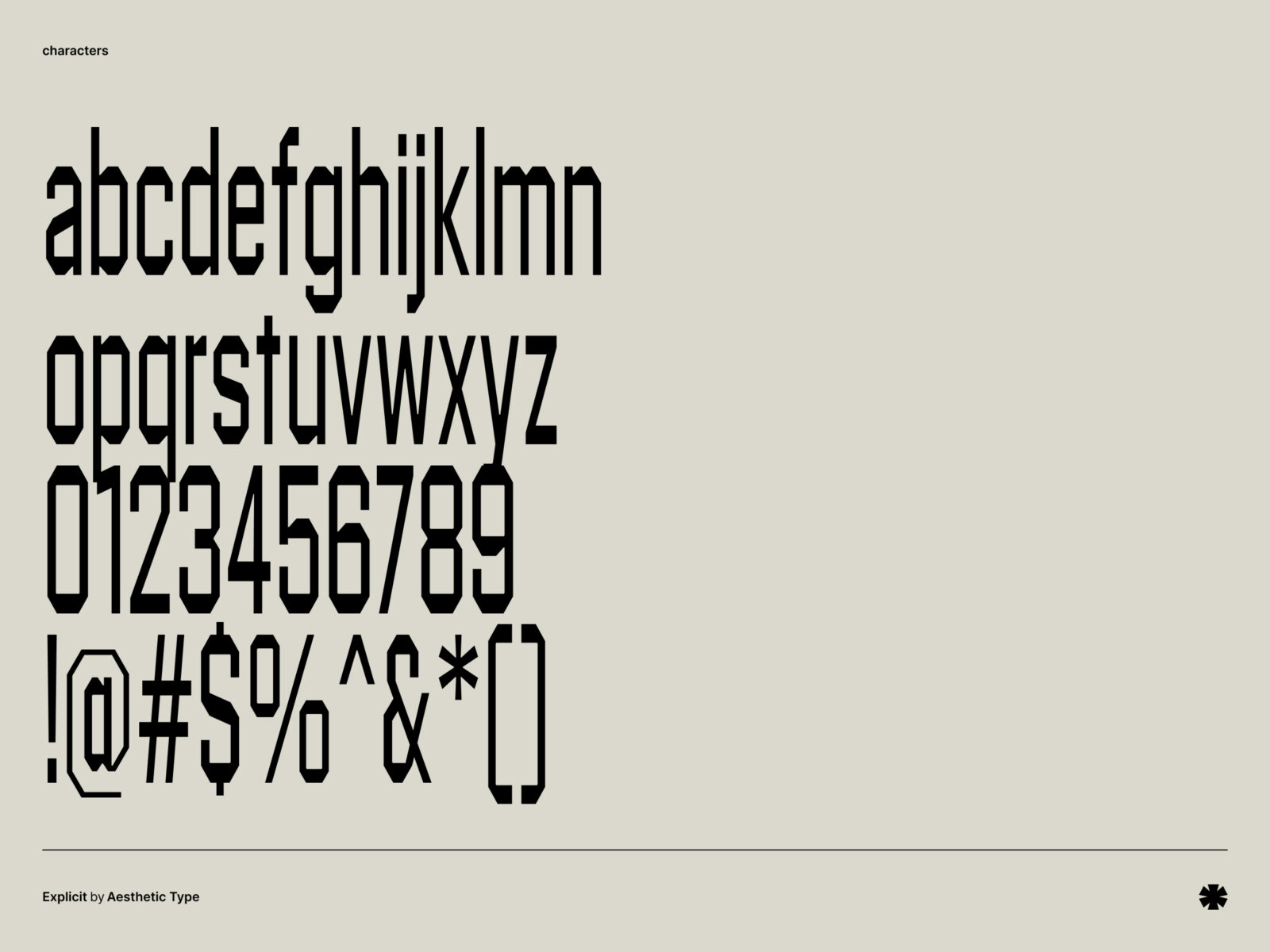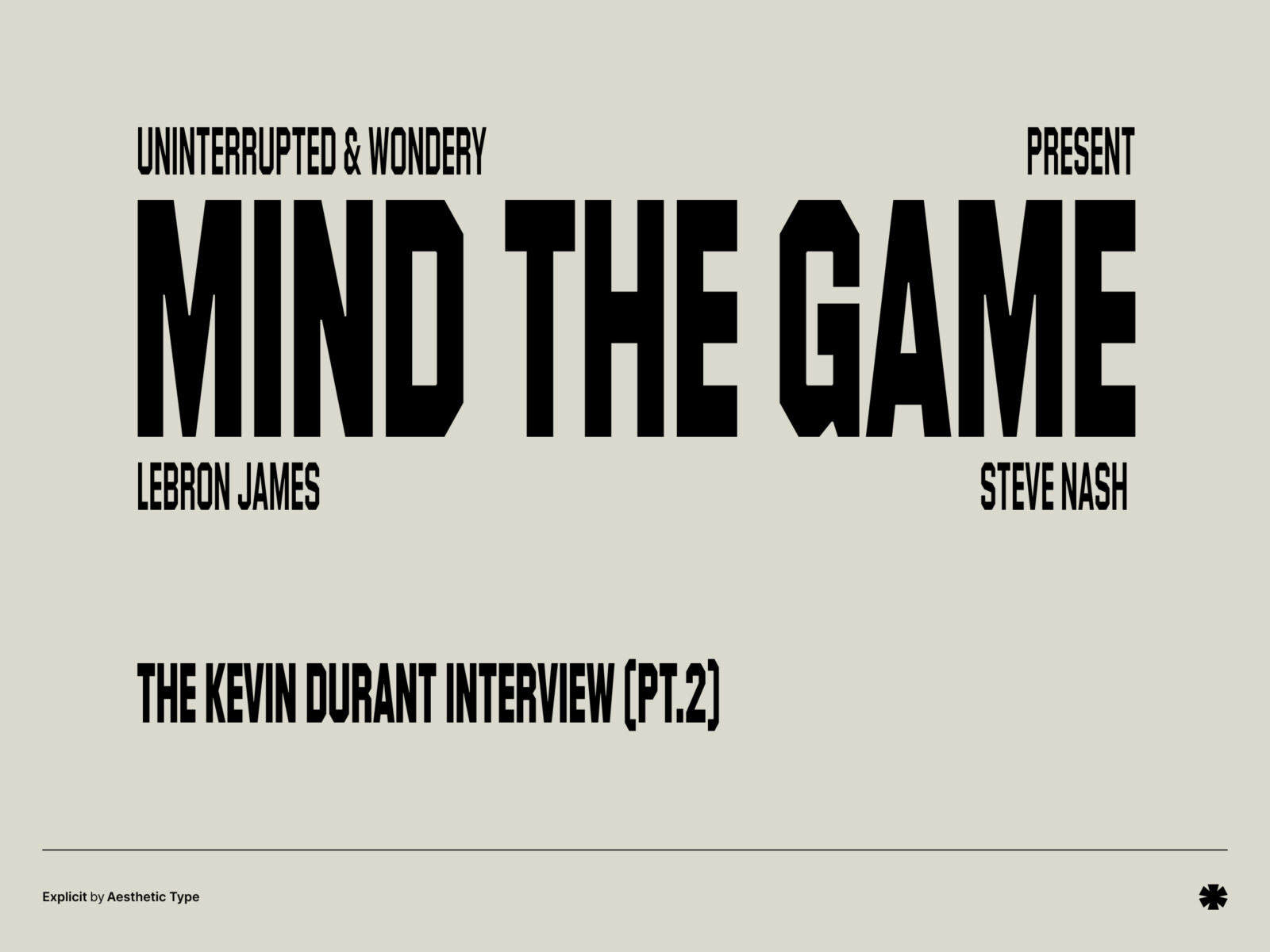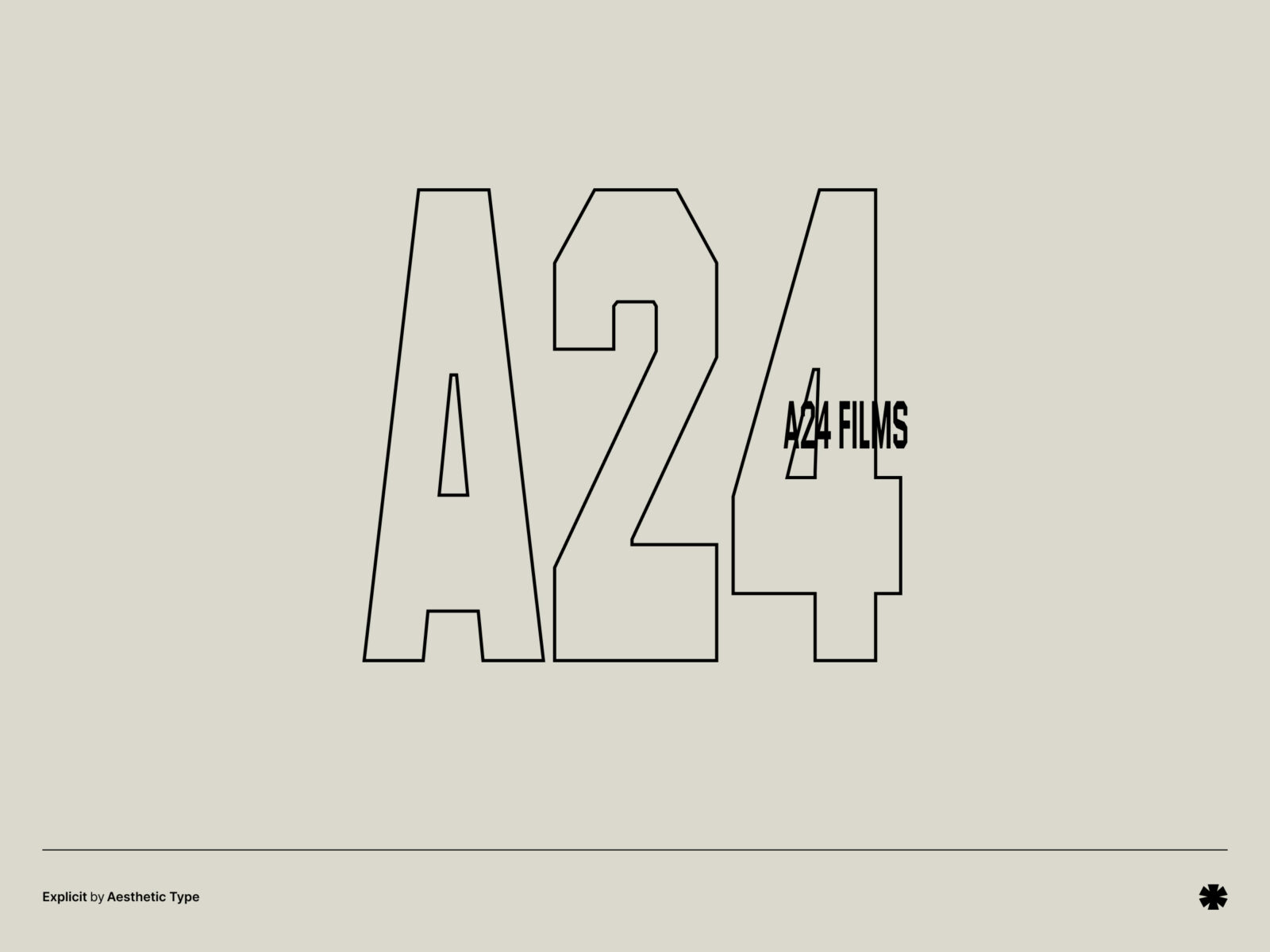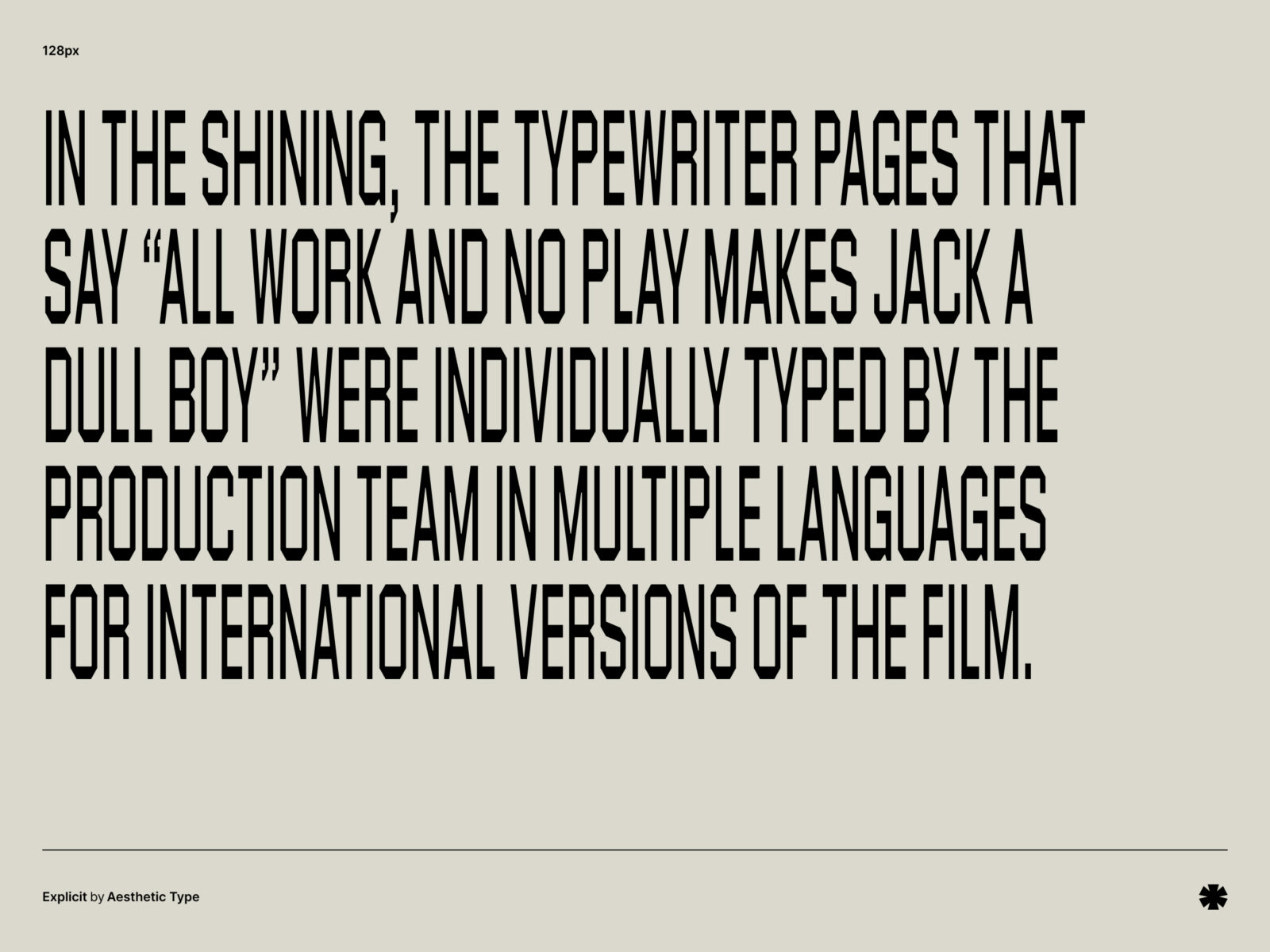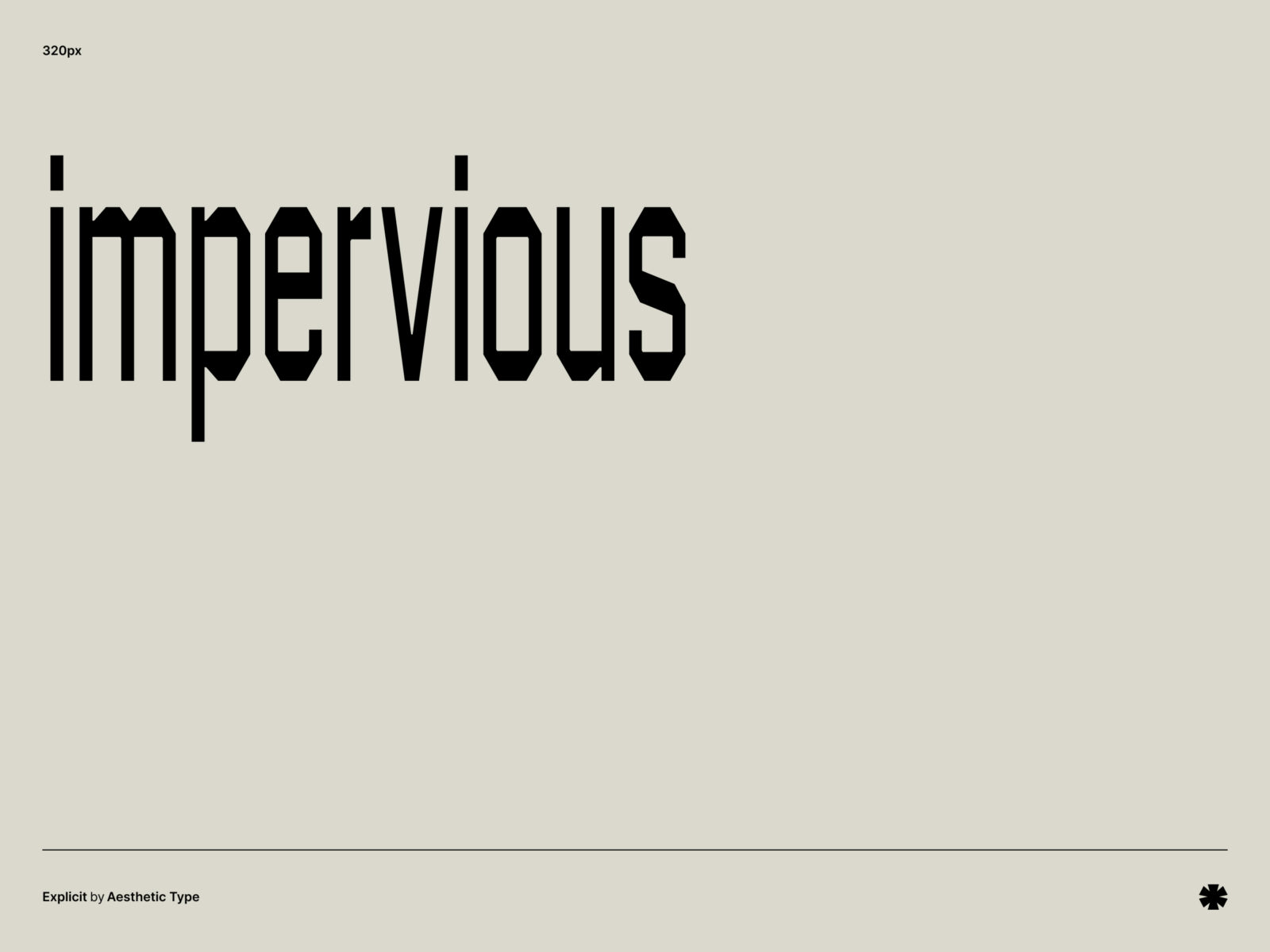
Explicit is a unique, narrow typeface that’s ideal for display use. Its angled style adds a bold touch to print designs and works especially well for projects with an industrial feel.